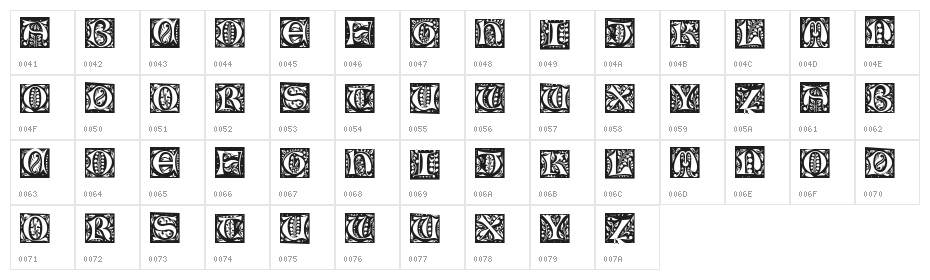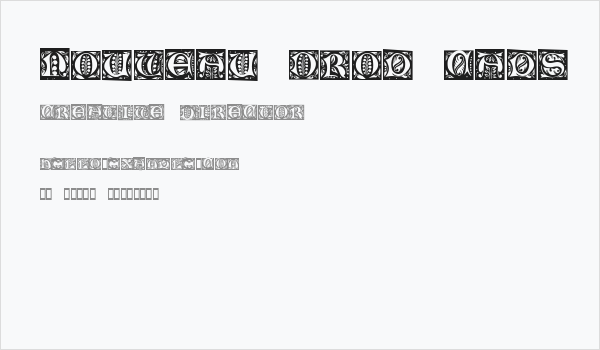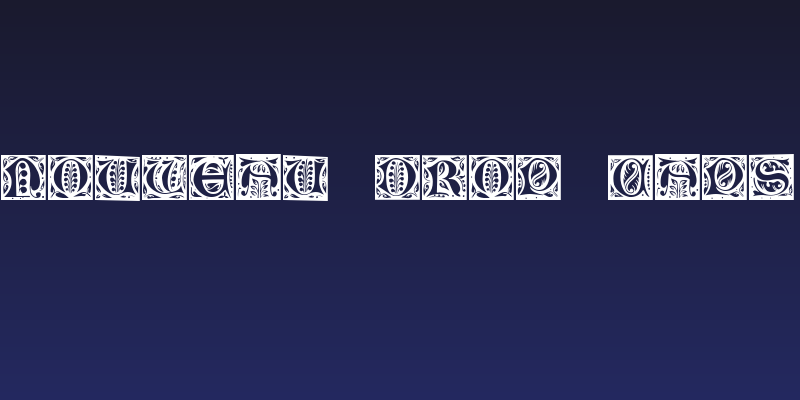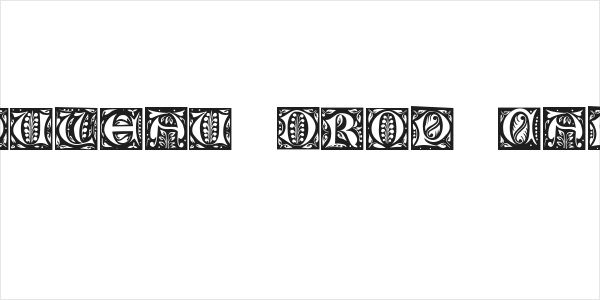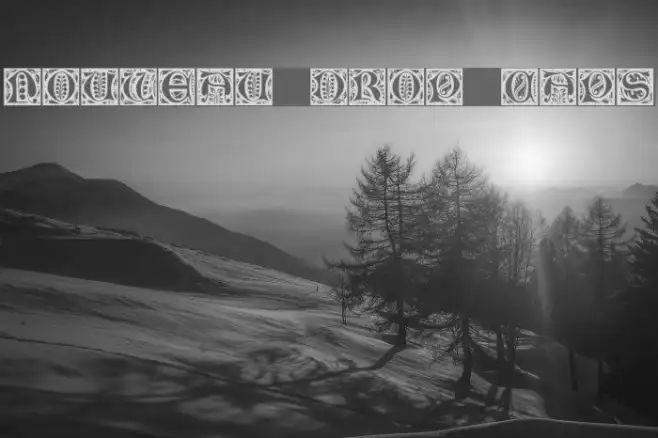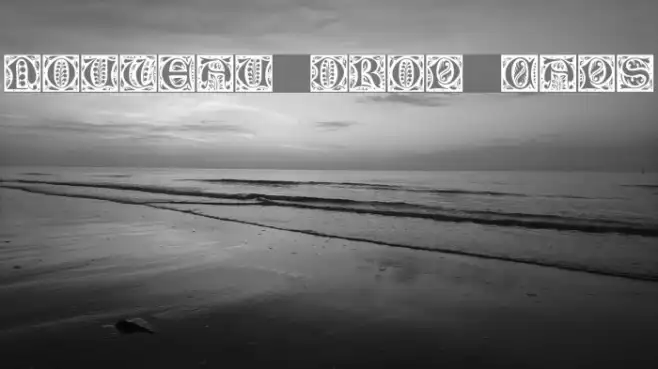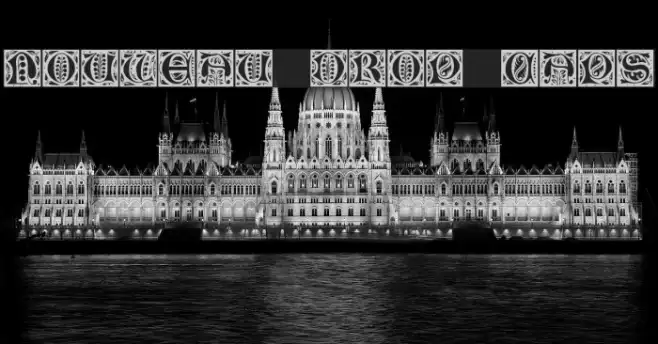
Nouveau Drop Caps Font
Nouveau Drop Caps Description
This decorative font features intricate, ornate designs reminiscent of the Art Nouveau style. Each letter is enclosed in a square, with elaborate floral and vine motifs filling the space around the letterforms. The uppercase letters are bold and highly stylized, making them ideal for decorative purposes. The font does not include lowercase letters or numbers, focusing instead on the artistic embellishment of each character. The detailed patterns within each letter create a sense of elegance and sophistication, suitable for projects that require a touch of vintage charm.